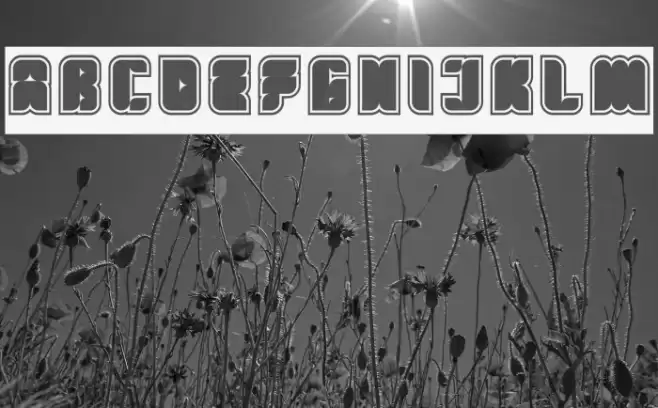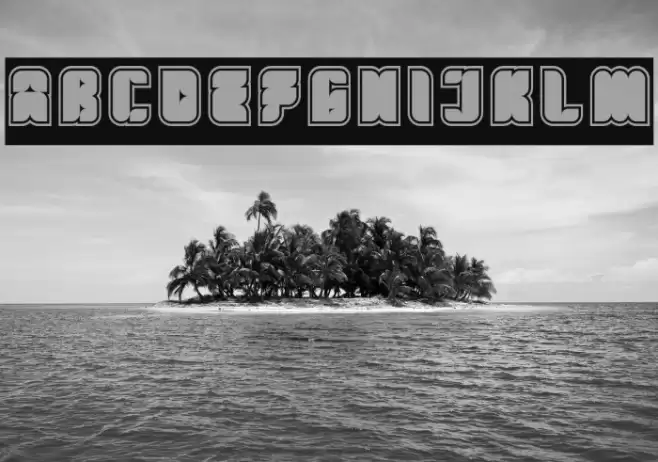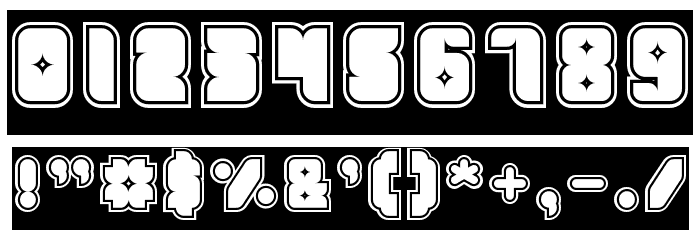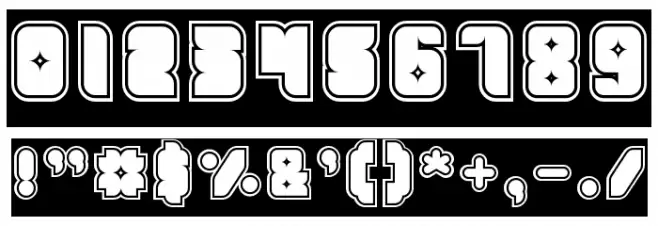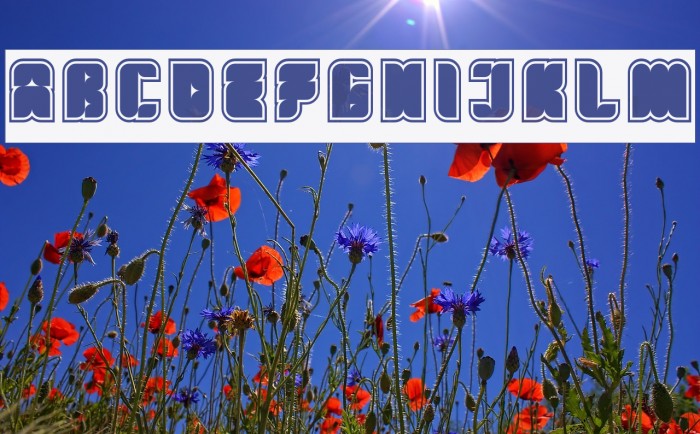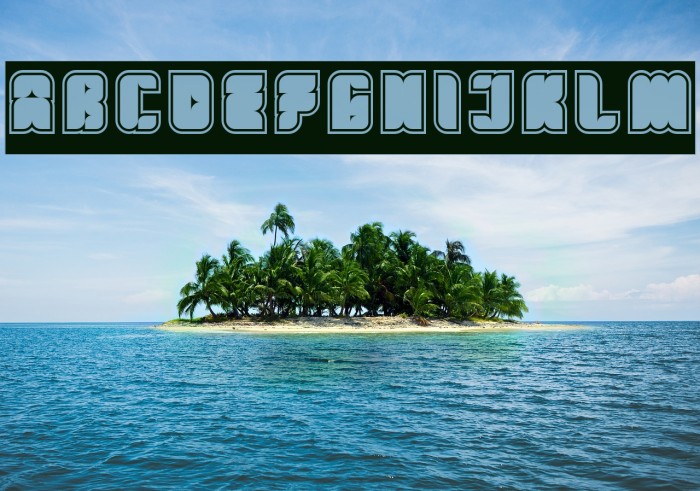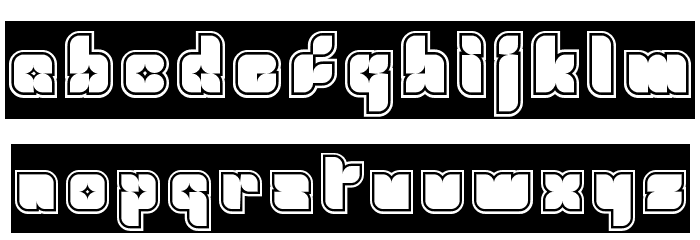
Fresh Mint-Inverse Font
Fresh Mint-Inverse Description
This font features a bold and playful design with a unique inverse style. Each character is enclosed in a thick outline, creating a striking contrast between the inner and outer spaces. The letters are blocky and geometric, with a whimsical touch that adds a sense of fun and creativity. The design includes star-like cutouts within each character, enhancing its decorative appeal. This font is highly stylized, making it ideal for projects that require a bold and eye-catching typeface. The consistent use of outlines and cutouts across both uppercase and lowercase letters, as well as numbers and special characters, ensures a cohesive look throughout.
A bold, playful font with thick outlines and star-like cutouts for a decorative effect from Uncategorized fonts.
- Proposed Projects: Ideal for children's books, posters, party invitations, and playful branding projects.